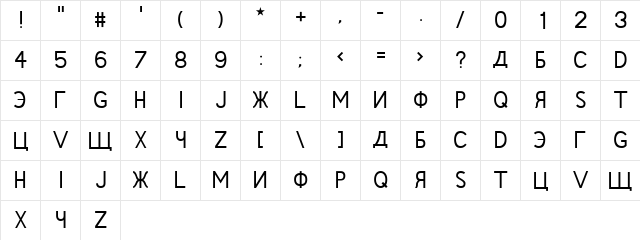
Rushin Regular
Design Context for Rushin Typeface
Rushin offers clean, dependable letterforms without strong stylistic allegiance, making it a practical choice for designers who need flexibility.
Pro Tip: Use Rushin in both headline and body roles to test its range before committing to a single application.